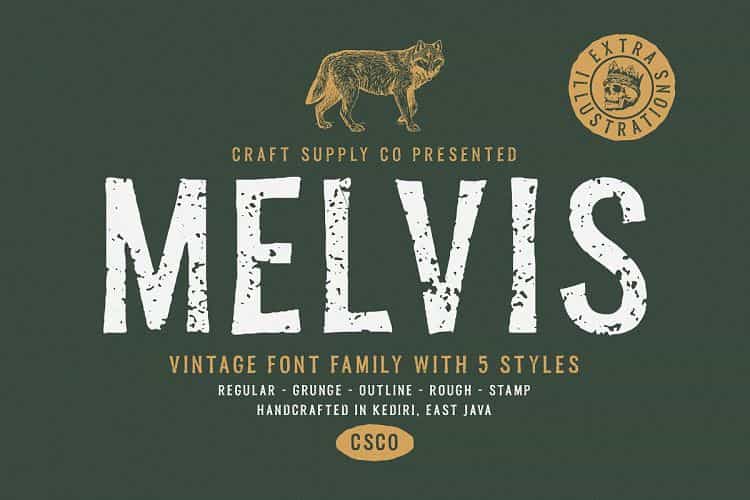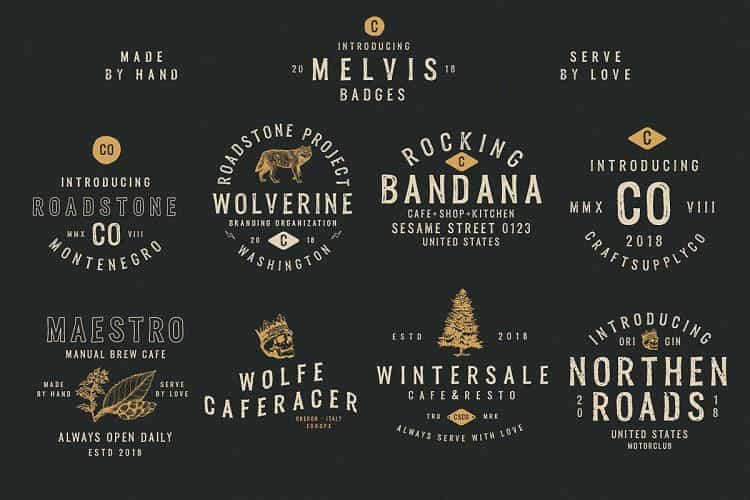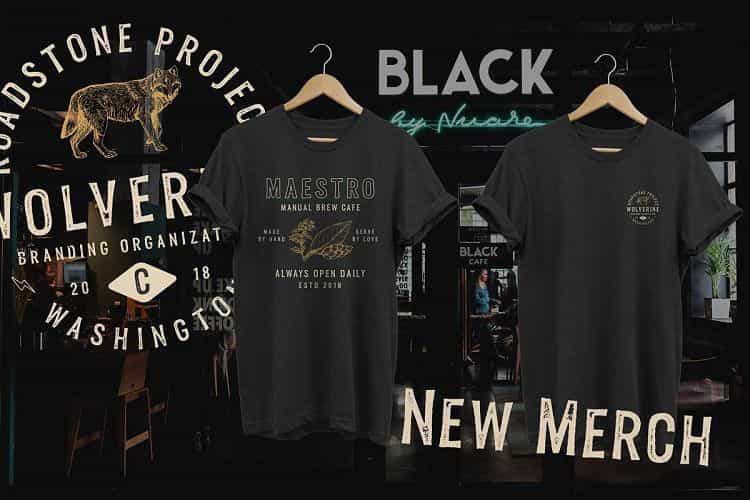
Discover Melvis Vintage Font Family, part of the Sans Serif Display collection—a versatile and unique font perfect for adding a personal touch to your projects. Download it for free and enjoy crafting designs with style, from invitations to social media posts. This font is available exclusively for personal use, giving you the freedom to create without limits. Unlock your creativity with Melvis Vintage Font Family today!
Introducing Melvis Font. Melvis – the Vintage Font Family. It can be applied to nearly all kinds of design projects including the print materials. The only limit is your imagination and a little help from the graphic design set in Extras, with one of the Melvis Font you will make your project more alive and look great than ever.